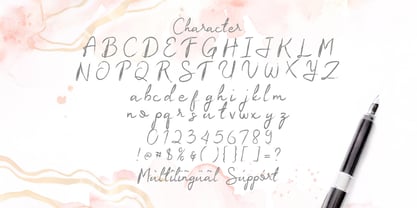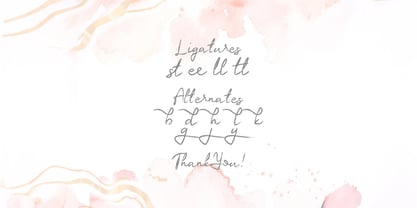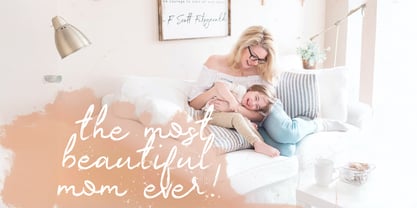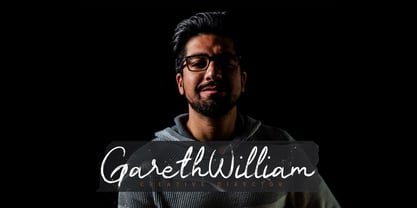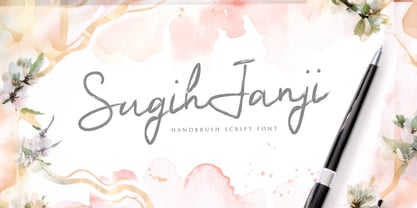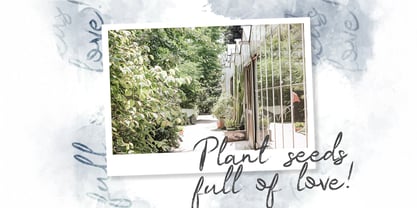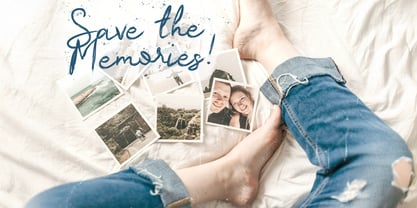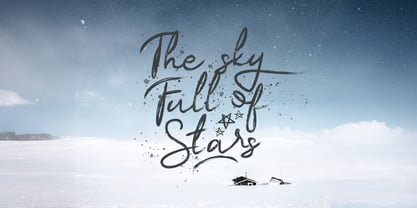
The Sugih Janji Font Family was designed by Virgiawan Listanto and published by Stringlabs Creative Studio. Sugih Janji contains 1 styles. More about this family
Sugih Janji is a bold and expressive handbrush script font that combines the raw energy of brush lettering with a modern touch. Its thick, textured strokes and fluid curves make it perfect for designs that need to stand out with personality and style. Bring boldness and creativity to your designs with Sugih Janji—the perfect font to make a lasting impression.
Designers: Virgiawan Listanto
Foundry: Stringlabs Creative Studio
Sugih Janji